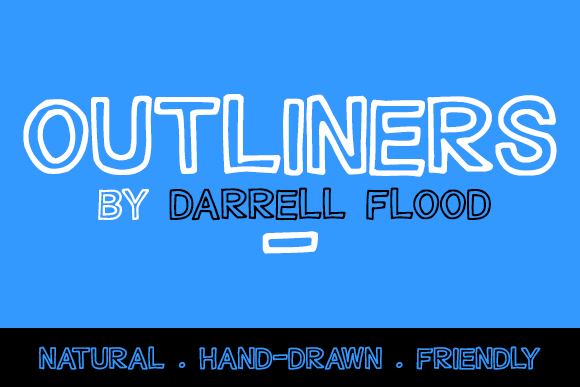
Dive into the world of Outliners - a captivating hand-drawn font that mimics the strokes of a broad marker, injecting a dash of playfulness and personality into your designs. Unleash your creativity and let your words dance with character, thanks to the chunky, decorative charm of Outliners. Say goodbye to mundane typography and embrace the vibrancy of Outliners, transforming your projects into visually stunning masterpieces.
Outliners isn't just a font; it's an invitation to let your imagination run wild. Picture your designs adorned with the unique strokes of Outliners, grabbing attention and leaving a lasting impression. From quirky posters to eye-catching social media graphics, Outliners is the perfect choice for adding a touch of whimsy and charm to your creations.
Step into the realm of interior design and let Outliners be your artistic guide. With its bold and playful style, Outliners can breathe life into your spaces, turning walls into canvases and transforming rooms into enchanting havens. Create captivating signage, mesmerizing wall art, or personalized home décor that reflects your unique personality and captivates the senses.
Outliners isn't just a font; it's an experience. Let your creativity flourish as you explore the endless possibilities that Outliners offers. Its hand-drawn charm adds a touch of warmth and authenticity to your projects, making them truly one-of-a-kind. Embrace the magic of Outliners and embark on a design journey that will leave you inspired, fulfilled, and eager to share your creations with the world.